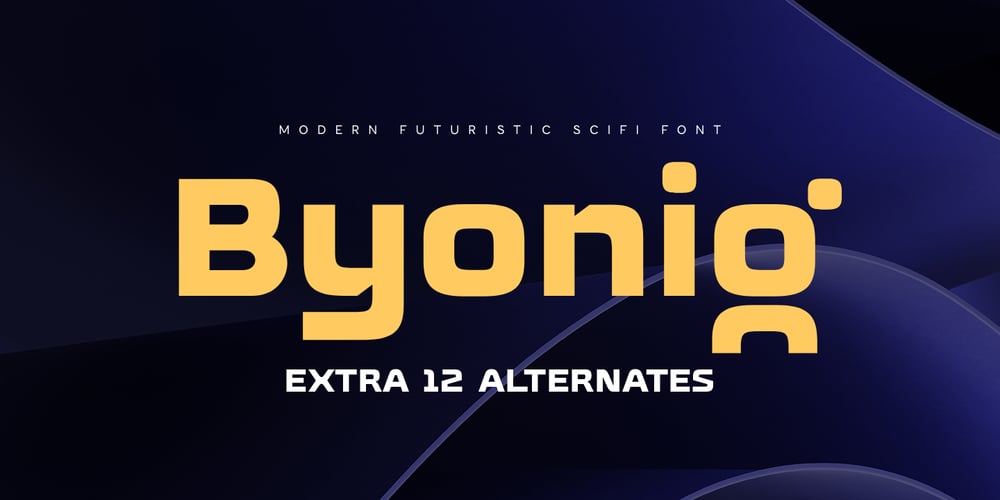
Byonig
Byonig font
Byonig Font Family was designed by Zamroni Hamzah and published by Sensatype Studio. Byonig contains 1 styles and family package options. Byonig is a Futuristic Sci-fi Font created specifically for Sci-fi, Modern, and Technology designs. Its unique, futuristic styles make your typography stand out, ideal for Robotic, technology, film, and Sci-fi themes. Anthem’s modern aesthetics bring a tech-inspired feel to any project, perfect for expressing your main ideas.Byonig Futuristic Sci-fi Font features: Sleek, futuristic characters designed for Technology-themed creativity Available in 4 file formats Preview examples to inspire your designs with Byonig font Includes special Technology and Sci-fi characters Perfect for headlines, posters, branding, and digital art Enhance your designs with Anthem’s cutting-edge style and make your projects shine. Enjoy the futuristic touch Byonig brings to your work!